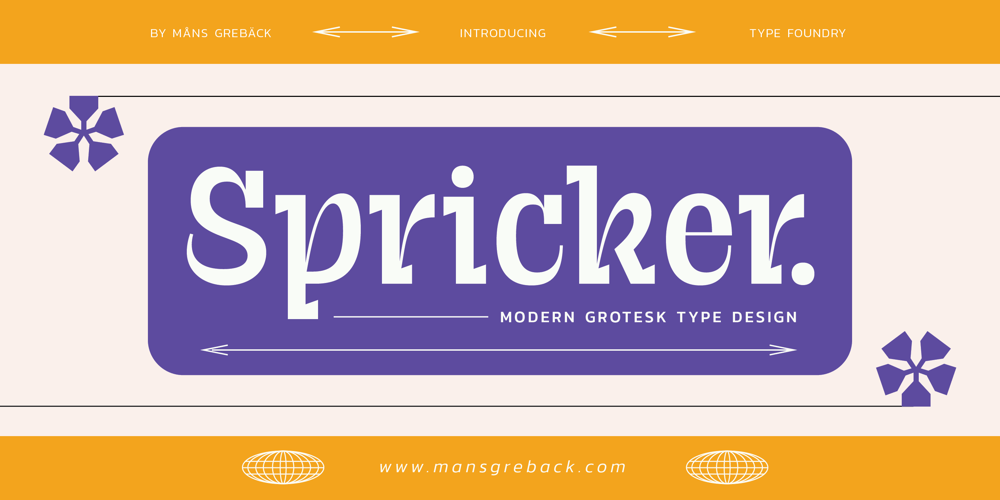
Spricker Font Family was designed by Måns Grebäck and published by Mans Greback. Spricker contains 4 styles and family package options. Spricker is where contemporary design meets typographical precision. With slab serifs anchoring its design, this typeface achieves a striking balance between robust weight and delicate hairline thin strokes. Every character is a study in contrast, yet the ensemble delivers undeniable legibility. Its unique letterforms bring a fresh flair to the classic structure, making Spricker a standout choice for modern designs.